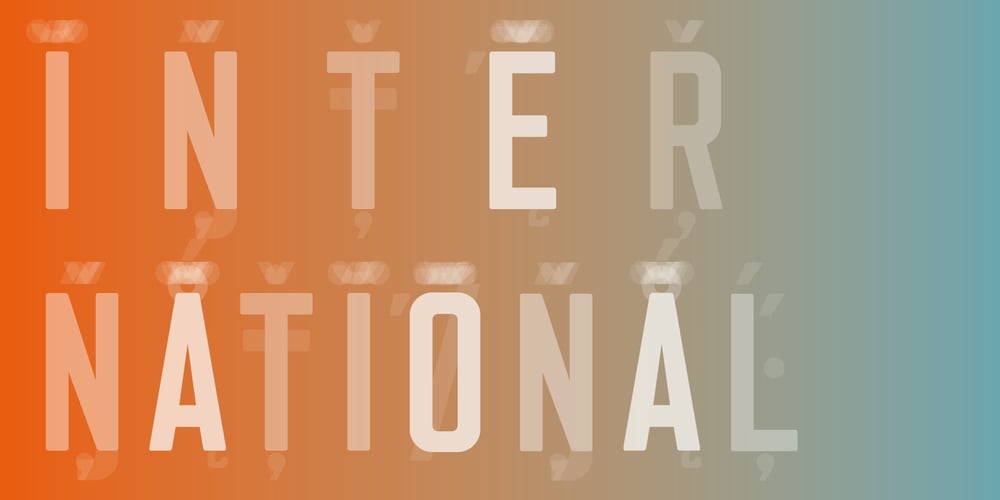
Flounder Pro Font Family was designed by Dominik Krotscheck and published by Dominik Krotscheck. Flounder Pro contains 9 styles and family package options. The Flounder Pro is a simple and clean condensed all-caps sans serif font. It is a close relative of the Floz, but has rounded edges. It comes with Cyrillic, Greek and Latin alphabets, the latter including loads of accented characters. It is also equipped with a bunch of ligatures, as well as alternates for the letters J, W, Q, Z, Ω and Ξ. Those features are easily accessible via opentype features. This family includes three weights with their respective italics and backslanted versions. The Flounder works well for Logos, Headlines, or short texts.